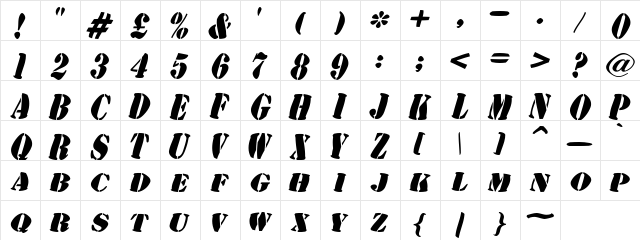
AustralianFlyingCorpsStencilSG Regular
Design Context for AustralianFlyingCorpsStencilSG Typeface
AustralianFlyingCorpsStencilSG has the rough pragmatism of spray-painted stencil signage, adding a raw, street-level authenticity to designs.
A strong choice for packaging that needs edge, warehouse aesthetics, and rough-and-ready visual identities.
Pro Tip: Use AustralianFlyingCorpsStencilSG at large sizes on packaging, posters, or apparel where the stencil cutaways read clearly. Avoid small sizes where those gaps become visual noise.